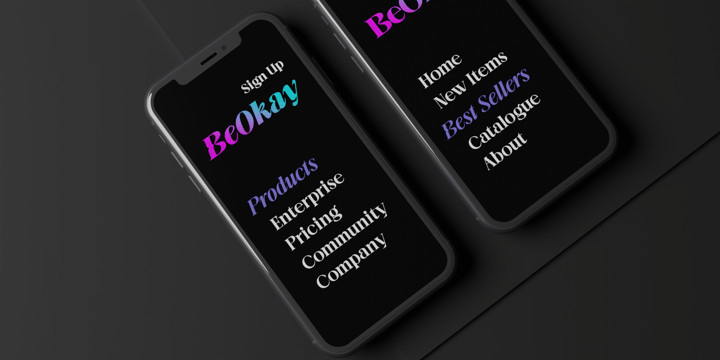
Be Okay Font Family
Be Okay Font FamilyIntroducing the display serif family for a variety of presentations. The Features of styles that each weight has will be an important reason for choosing a font family.
The combination of dreamy grooves and sophisticated, sharp serifs will excite you. The psychedelic glyphs applied to some capital letters can be alternated with the classic stem forms.
And the elegant and colorful transformation of italic styles will be the best inspirations for brand design.
Be sure to try the Stylistic Alternates and Ligatures this family has to offer.